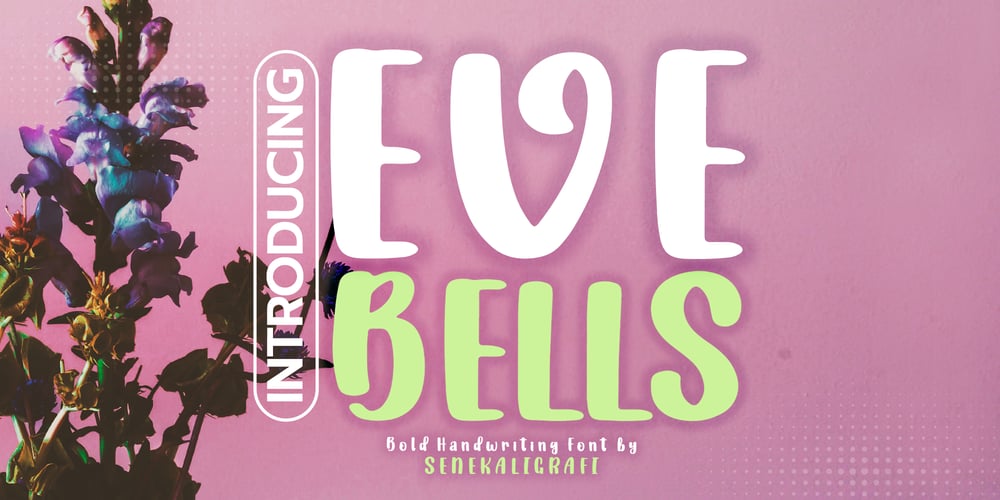
Eve Bells
Eve Bells font
Eve Bells Font Family was designed by Muhammad Helmi and published by Senekaligrafika. Eve Bells contains 1 styles and family package options. “Eve Bells” is a playful handwriting font special for holiday dan christmas display, that puts a smile on your project and will inspire you to create something fun and memorable.“Eve Bells” will help you to create special and touching typographical design for holiday projects, for every day or the happiest day in life, happy birthday cards, baby shower, greeting card, headings, flyer, product packaging, book cover, printed quotes, logos, christmas project, and many more.It is really universal and modern font.The owner of endless possibilities!